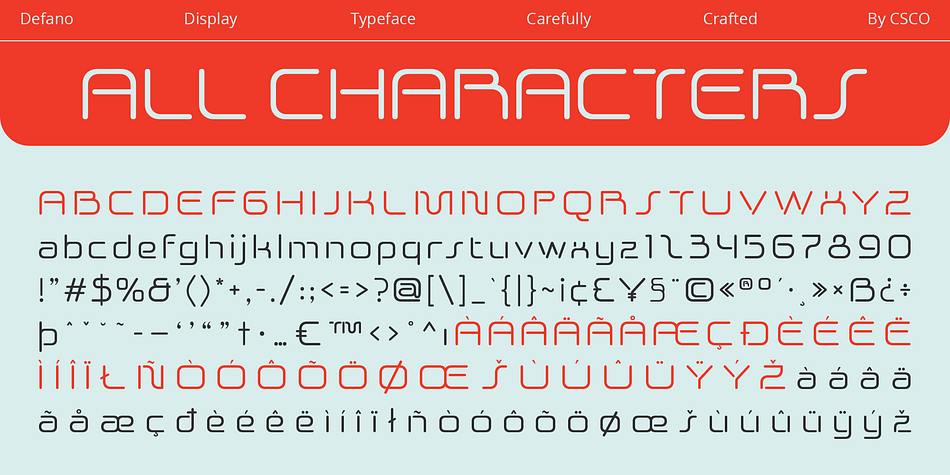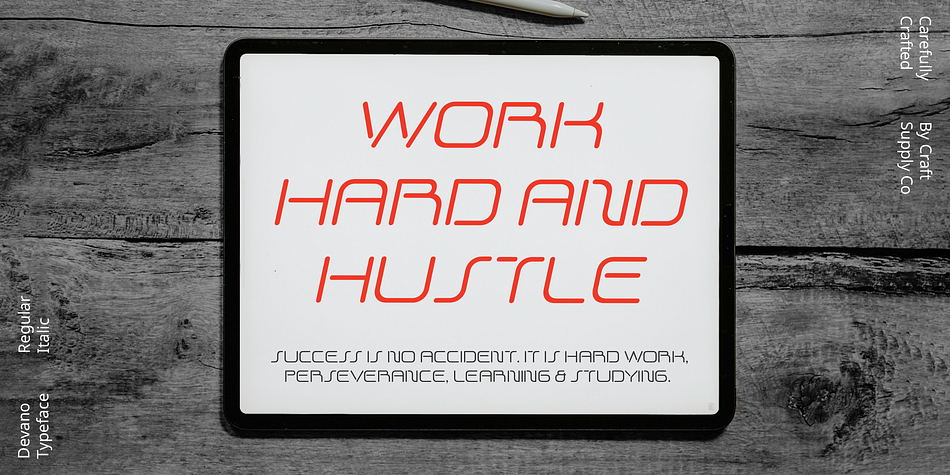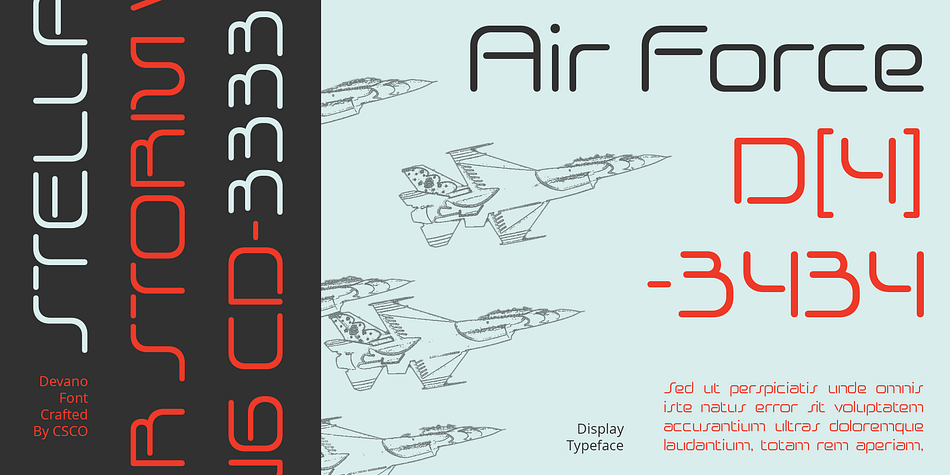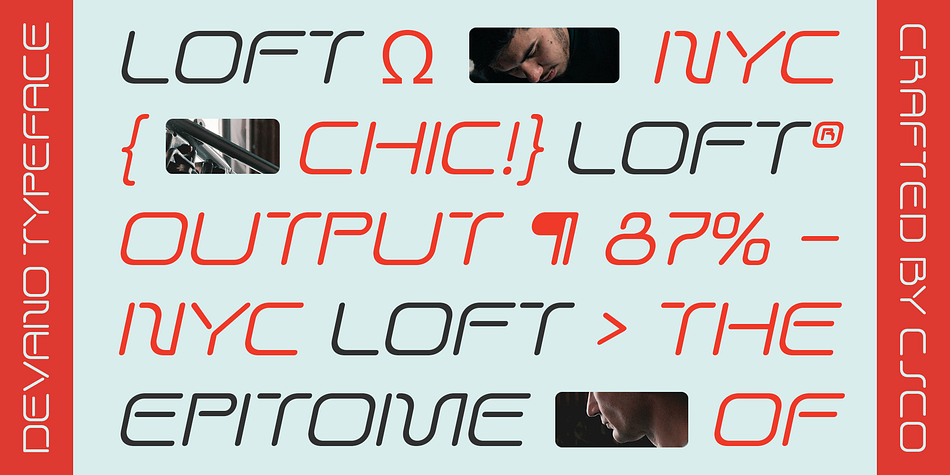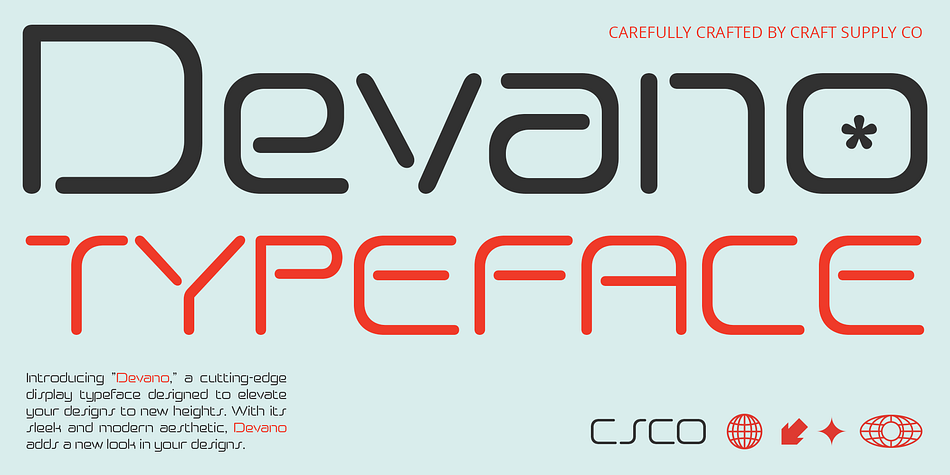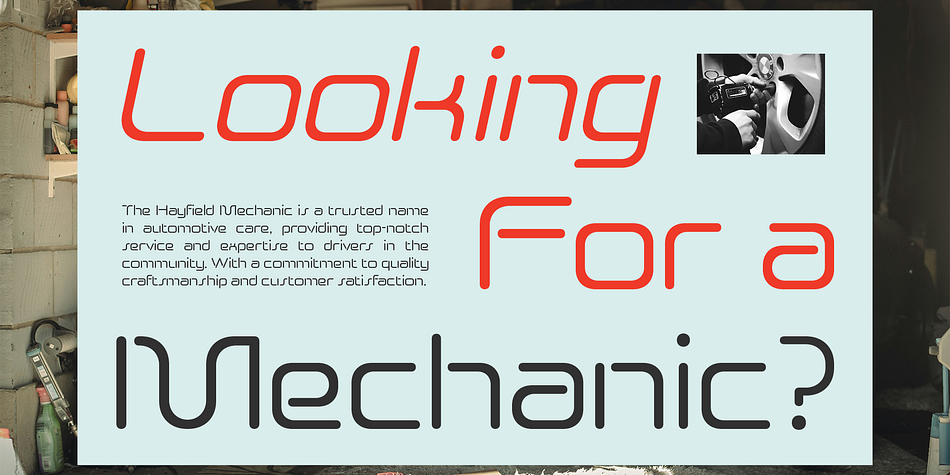
Devano
Devano is a display sans font family. This typeface has two styles and was published by Craft Supply Co.
Devano – Futuristic Font: Embracing Tomorrow’s Design
Modern Display Font with Futuristic Style
Devano Font is a modern display typeface that embodies a futuristic style, making it ideal for designs that envision tomorrow. Its sleek lines and geometric shapes evoke a sense of innovation and progress, perfect for futuristic-themed projects.
Perfect for Futuristic Designs
Whether used for posters, logos, or branding, this font adds a futuristic touch to any design. Its clean and contemporary look makes it a versatile choice for projects that aim to convey a sense of innovation and forward-thinking.
Captivating and Contemporary
Devano Font captivates with its contemporary aesthetic, offering a fresh take on futuristic design. Its clean lines and sharp angles create a dynamic and futuristic look that is sure to leave a lasting impression.
Embrace the Future of Design
Embrace the future of design with Devano Font. Its modern style and futuristic flair make it the perfect choice for projects that dare to imagine what’s next.